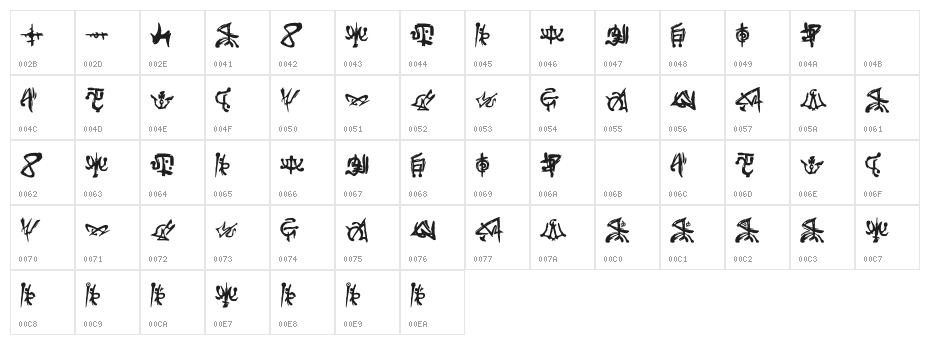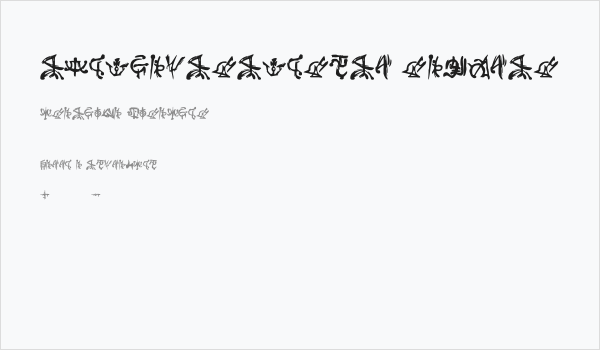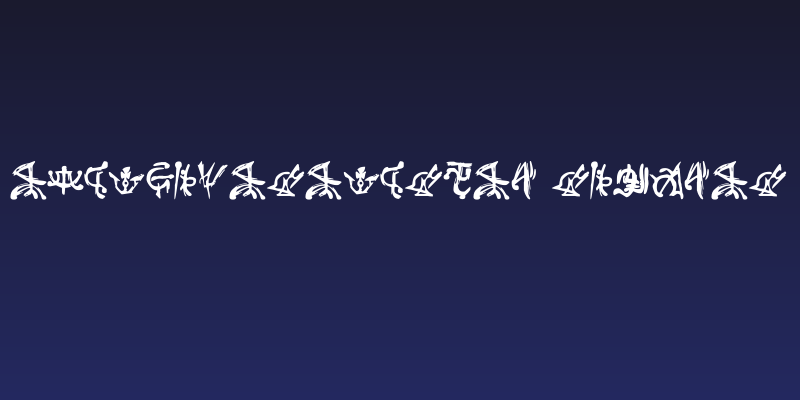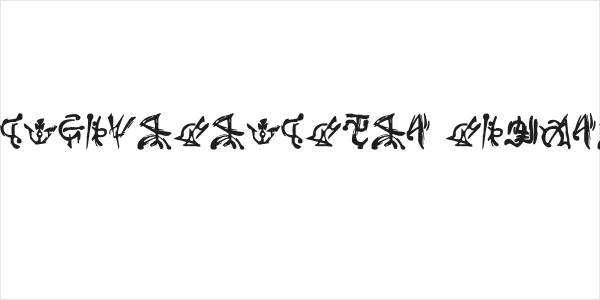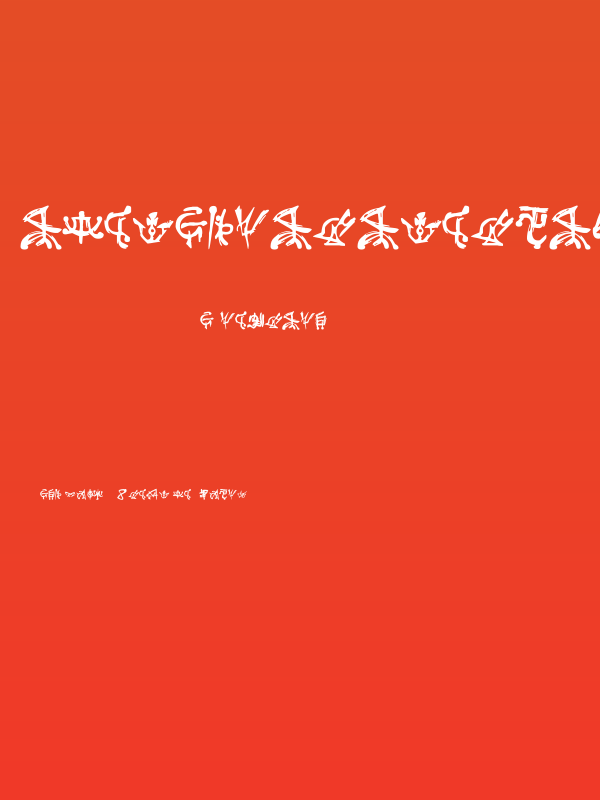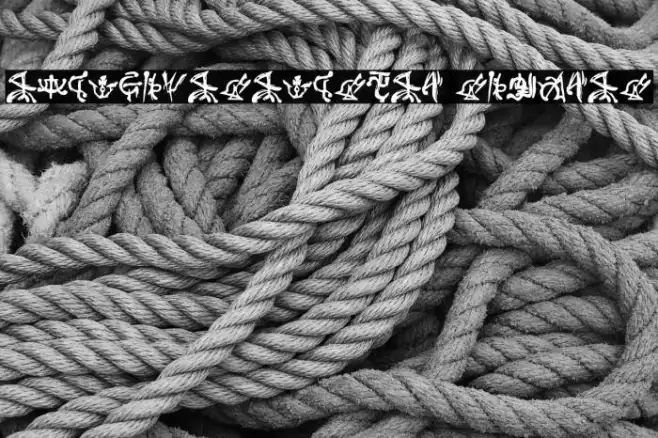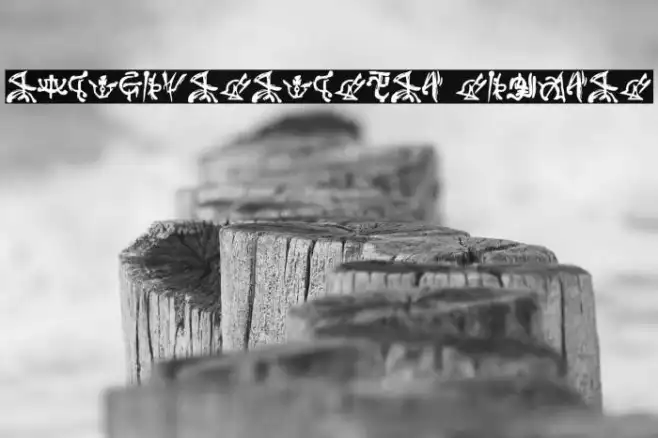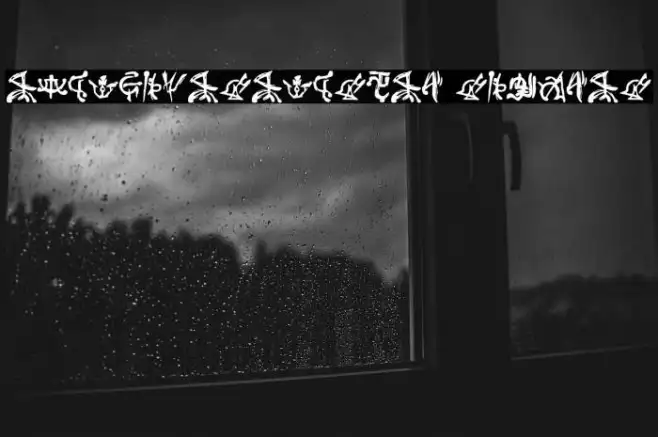
AFonteParanormal Regular Font
AFonteParanormal Regular Description
This font exhibits a highly decorative and abstract style, reminiscent of ancient scripts or mystical symbols. The characters are complex, with intricate details and unique shapes that suggest a sense of mystery and otherworldliness. The strokes are bold and varied, creating a dynamic visual texture. The overall appearance is both artistic and enigmatic, making it suitable for creative and unconventional design projects.
| Use Case | Logos, Posters, Artistic projects |
| Proposed Projects | Ideal for fantasy-themed designs, book covers, movie posters, or any project requiring a mysterious and artistic touch. |